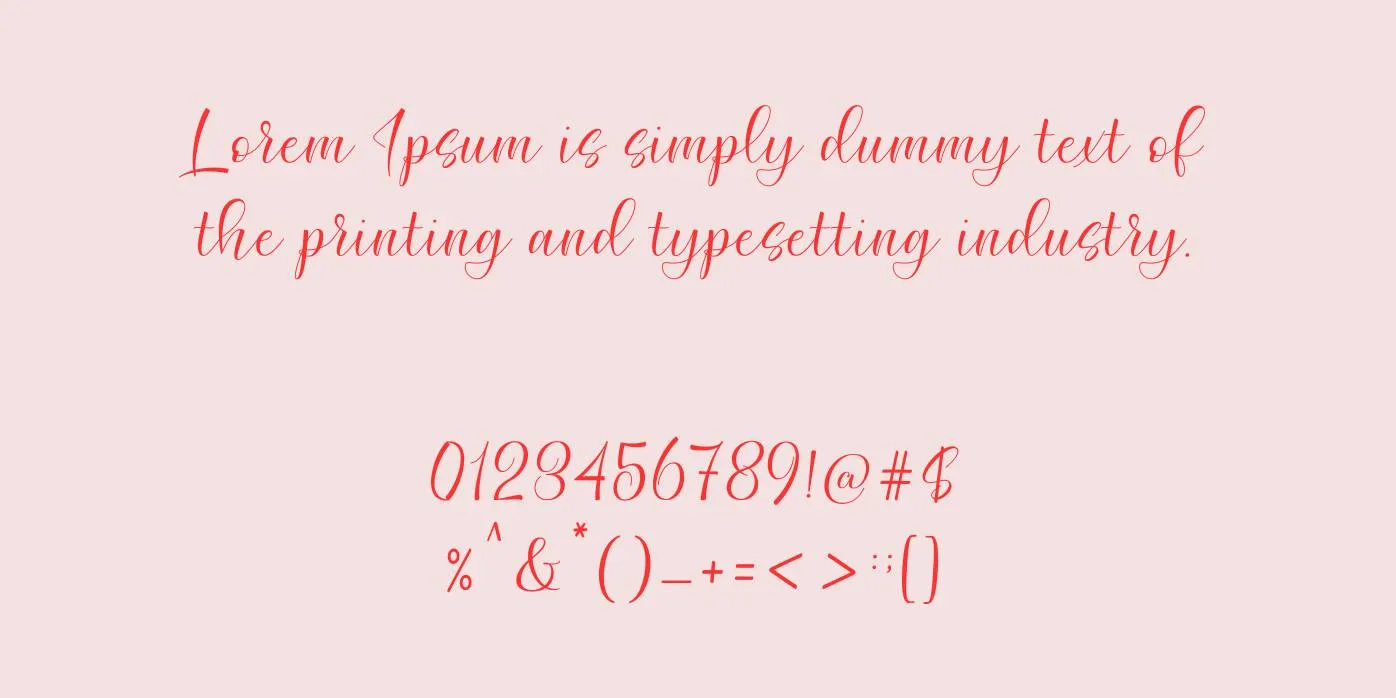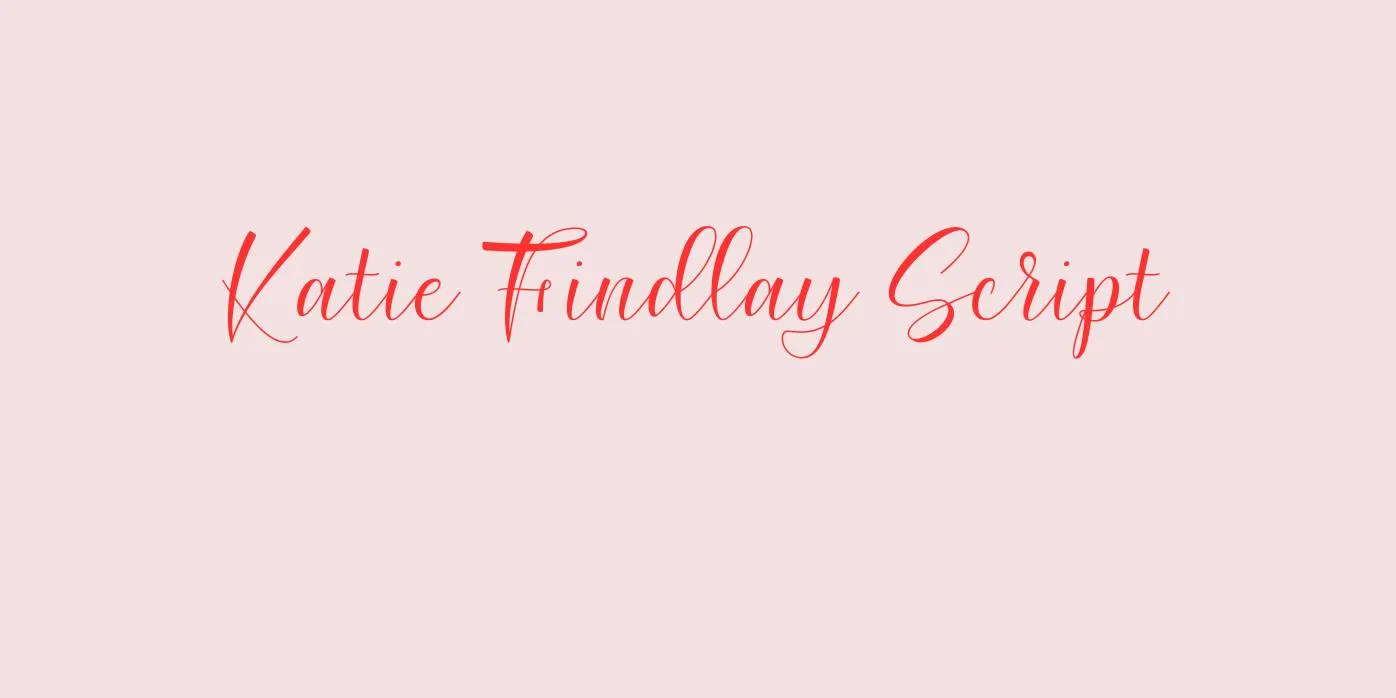
Katie Findlay Script Font
You are going to read about one of the calligraphy fonts. Katie Findlay Script Font is a calligraphy type of typeface. Cooldesignlab is the creator of this texture. There are 445 glyphs for this font.
The characters of this typeface are thin, stylish, and readable. There is a tool that will generate your simple text into the text of this font. This tool is known as an online generator tool. Using this tool you can generate the text in this font in many colors, sizes, shapes, and designs.